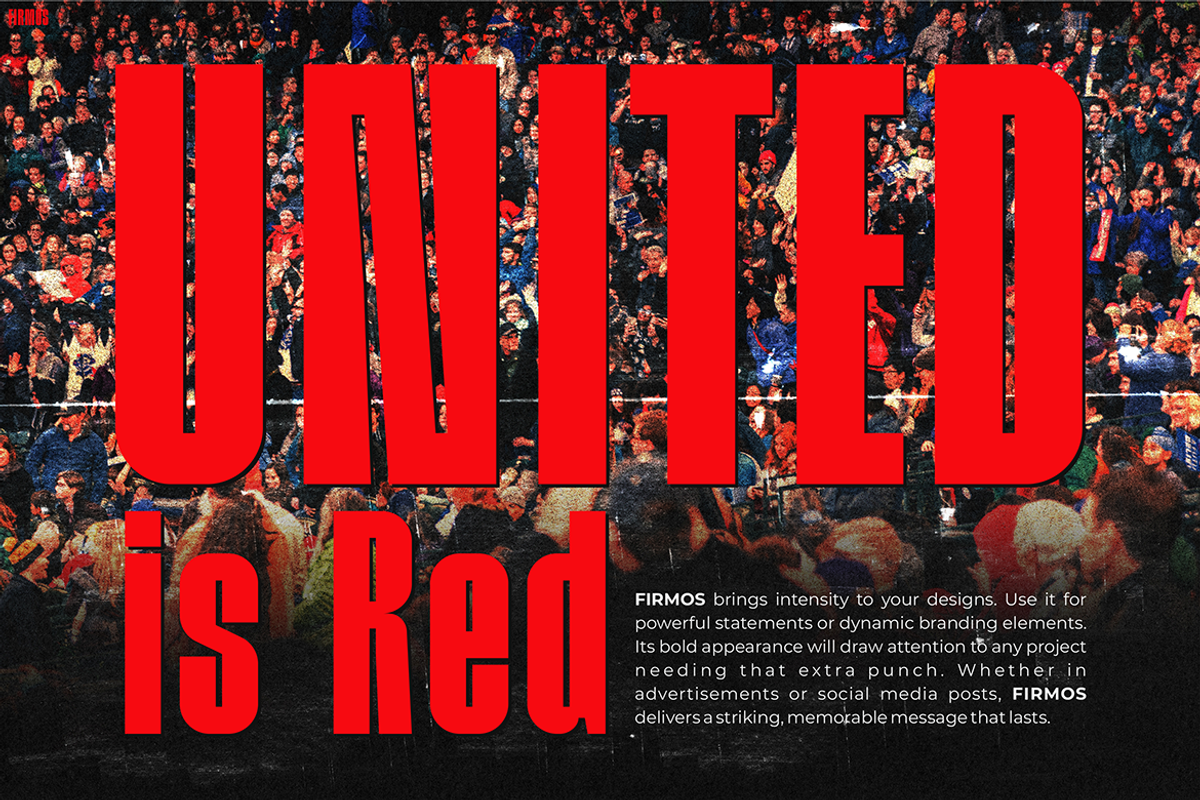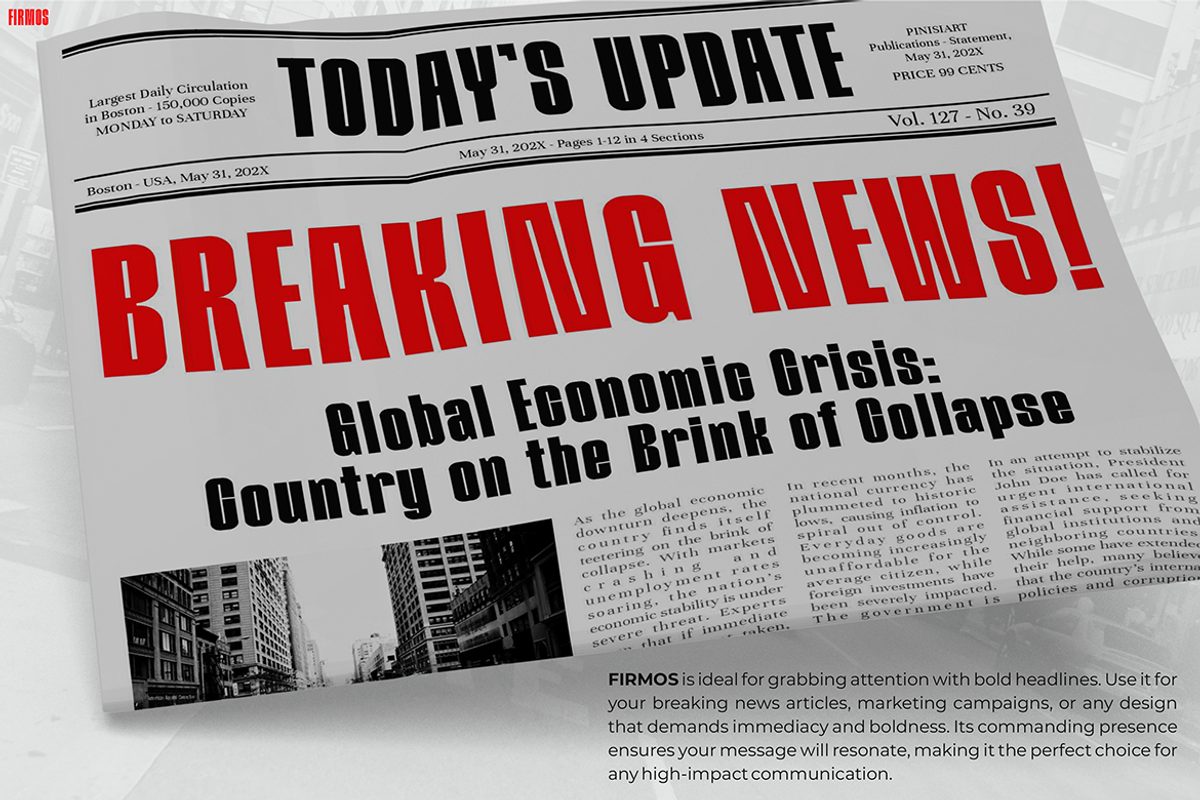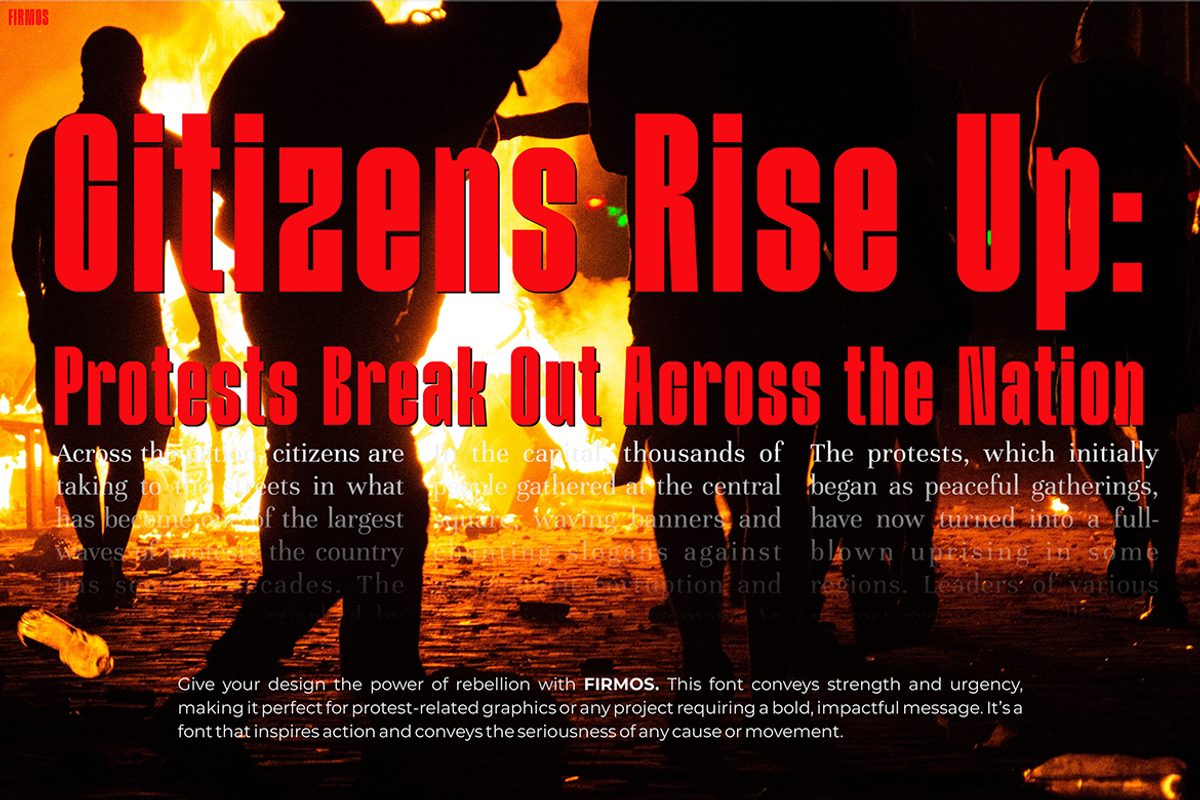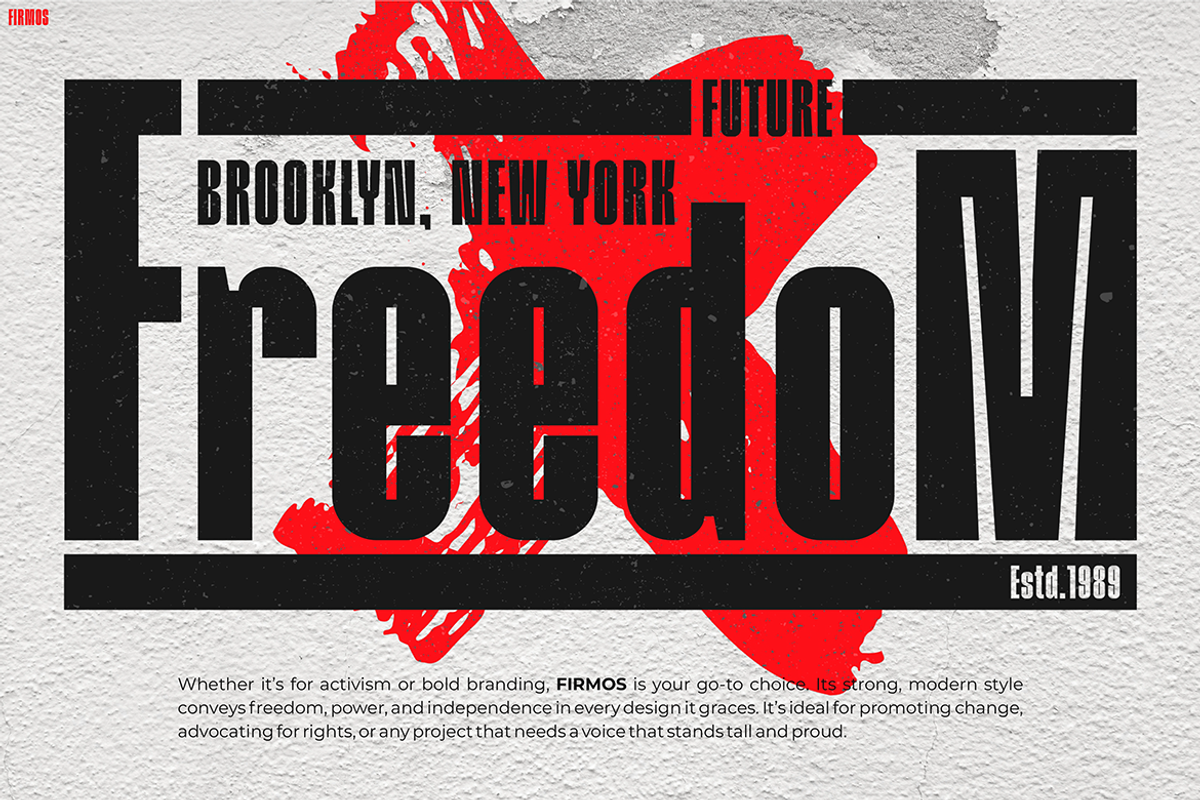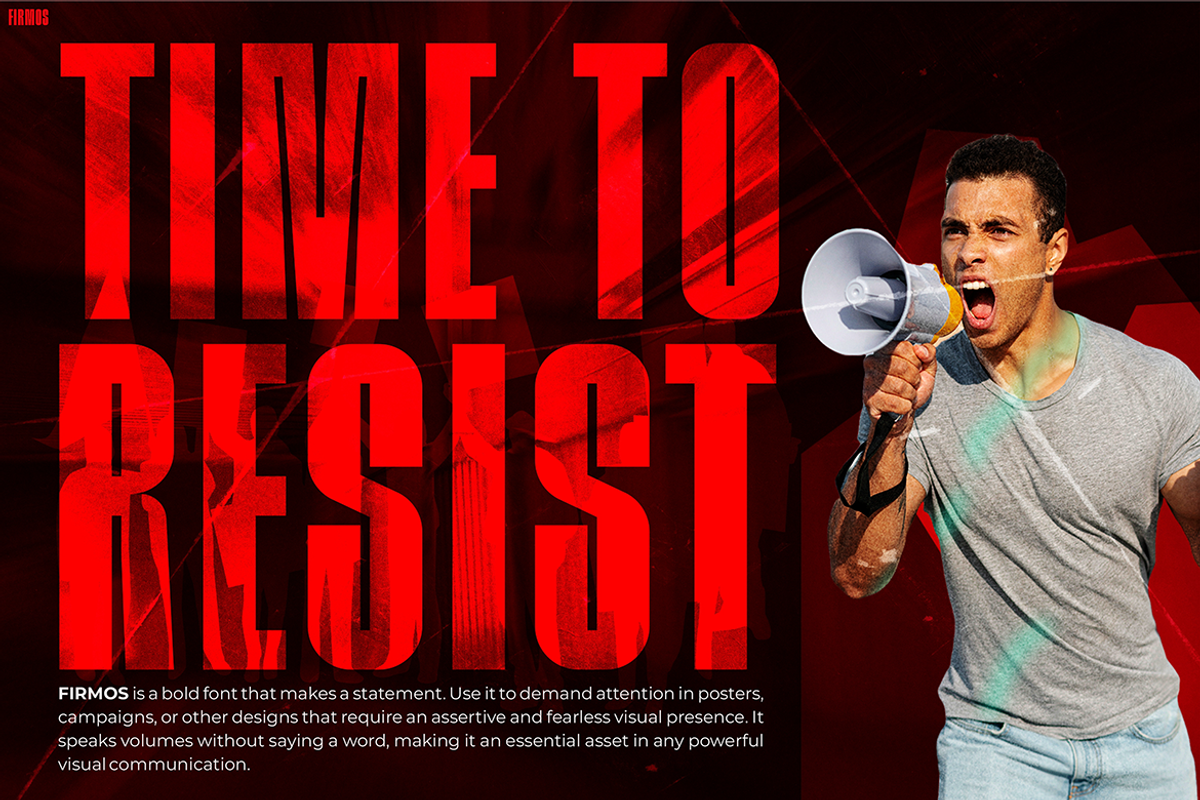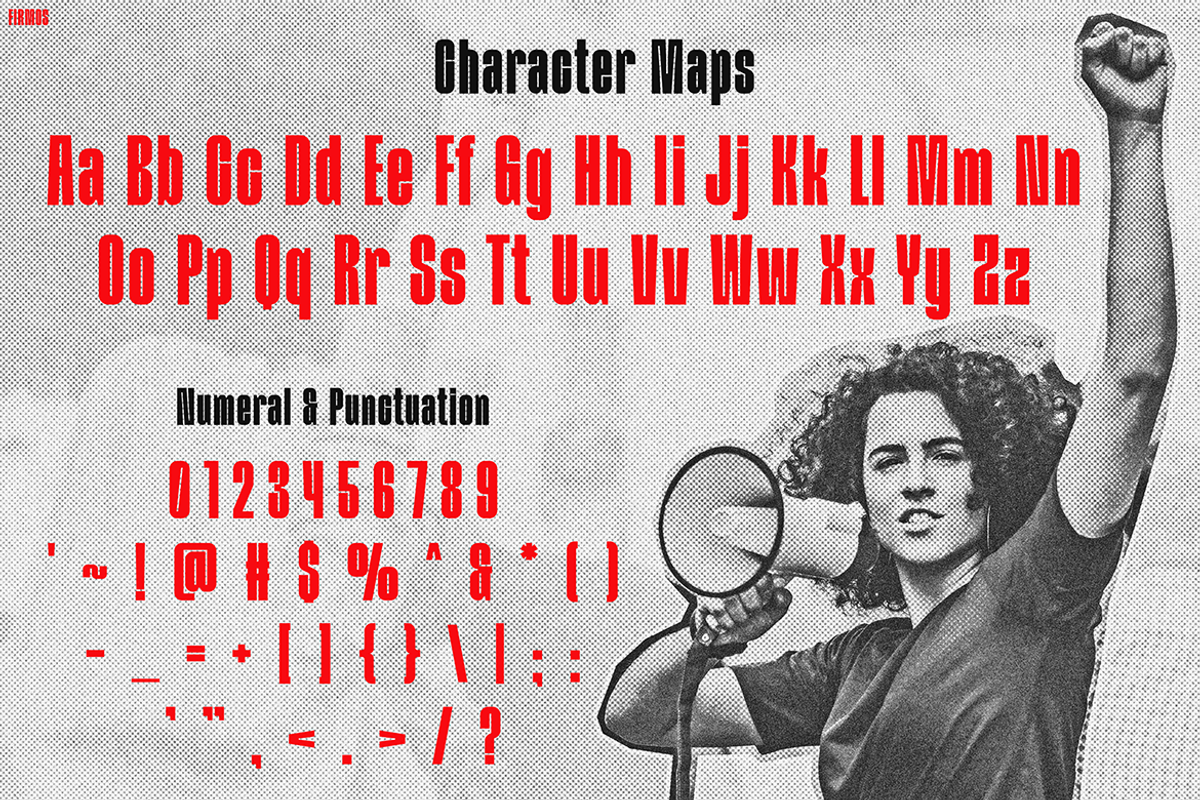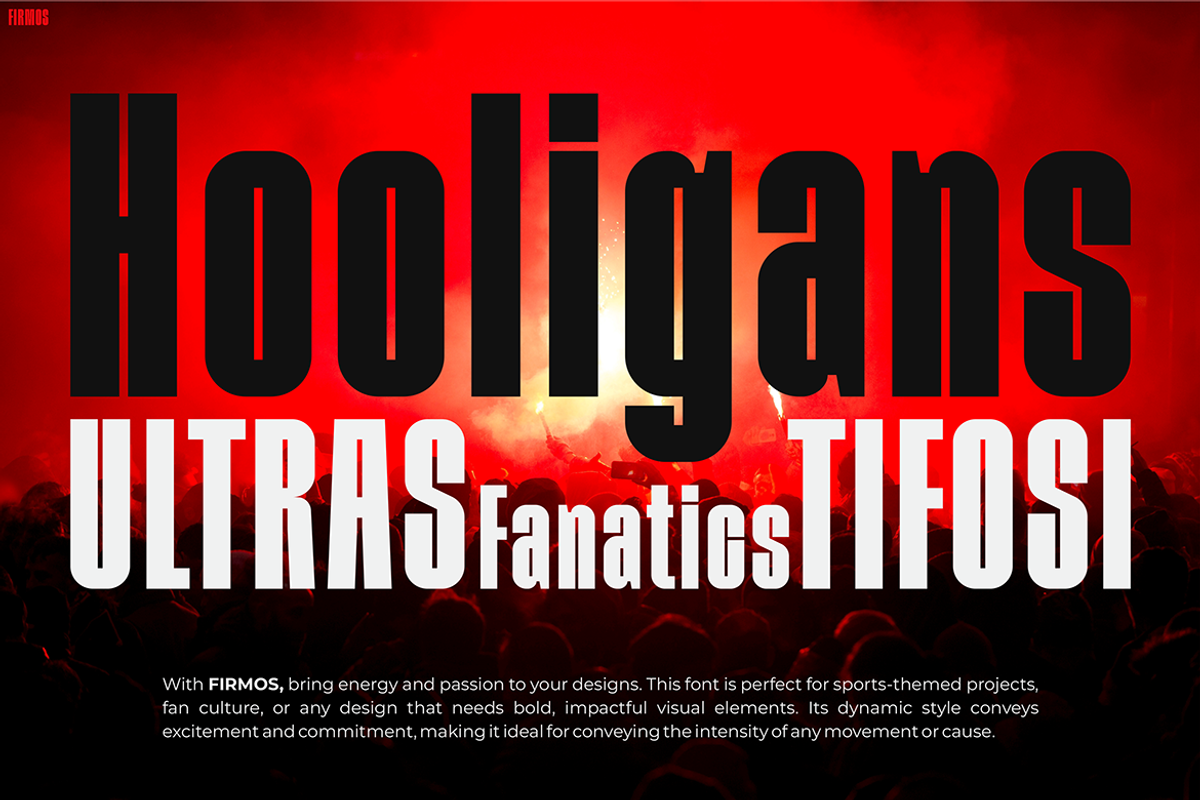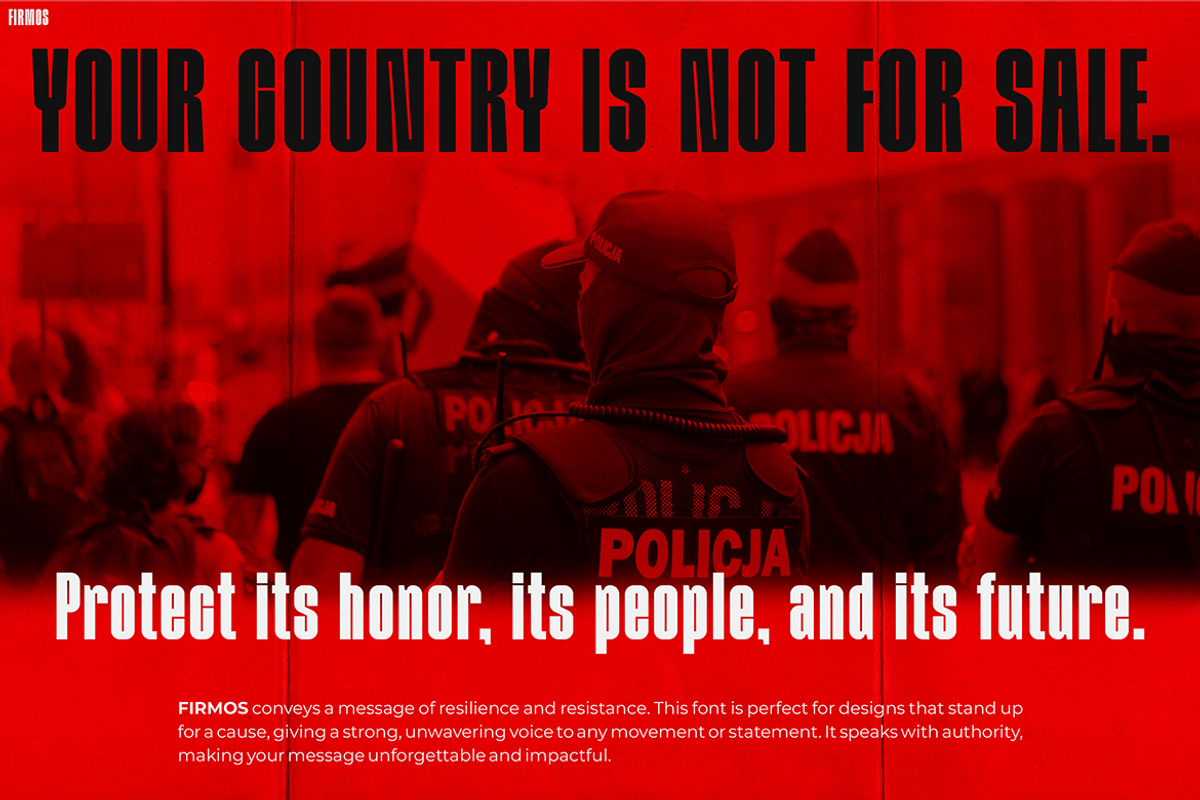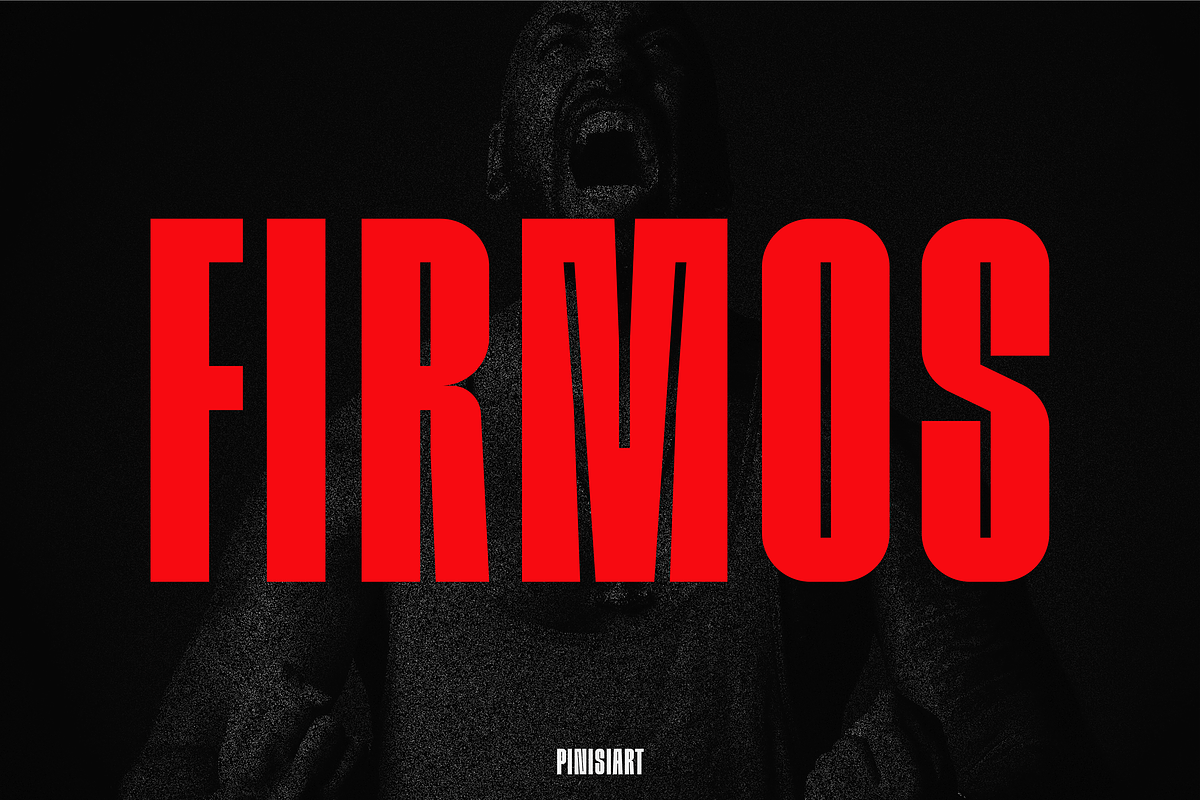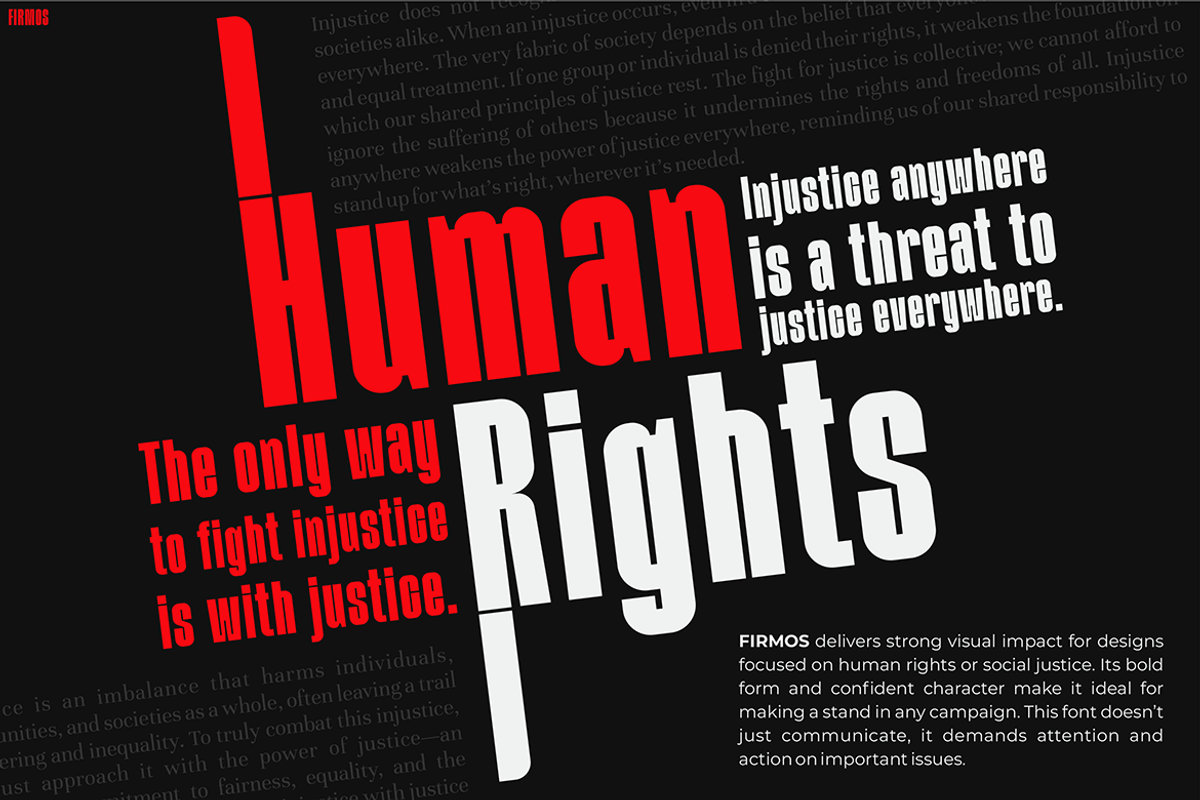
FIRMOS
Retro Font FIRMOS is a bold and commanding typeface designed to make a statement. Inspired by vintage protest posters and industrial typography, this font embodies strength, determination, and a fearless visual presence. Moreover, its sharp edges and thick strokes create an eye-catching effect, making it perfect for high-impact designs. FIRMOS doesn’t just complement a layout—it dominates it, demanding attention with its strong, structured form.
Whether used in branding, posters, or digital content, FIRMOS amplifies the message with confidence and intensity. In addition, its retro-inspired look gives off a timeless appeal while maintaining a modern edge. Thus, it becomes an essential choice for those who want to infuse their designs with power and nostalgia. The bold letterforms convey urgency and energy, making it ideal for designs that need to grab and hold the viewer’s attention instantly.
With its aggressive yet stylish design, FIRMOS is not just a font—it’s a visual force. Furthermore, it is the perfect blend of retro aesthetics and contemporary impact, making it suitable for campaigns, streetwear branding, and any creative project that requires a fearless and assertive typographic approach.